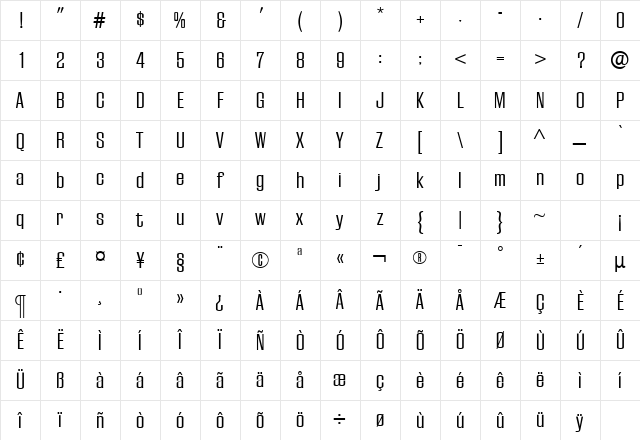
EuropaGrotesqueLight Roman
Design Context for EuropaGrotesqueLight
EuropaGrotesqueLight is a composed and adaptable typeface that performs quietly and consistently across a wide range of design contexts. Its slender proportions lend an understated elegance to any composition.